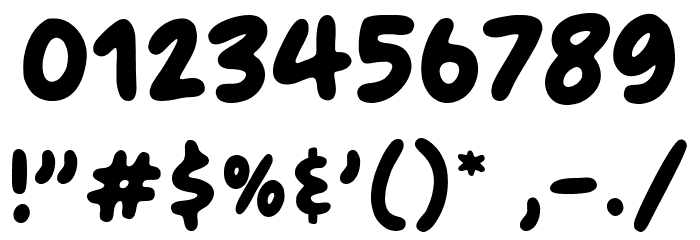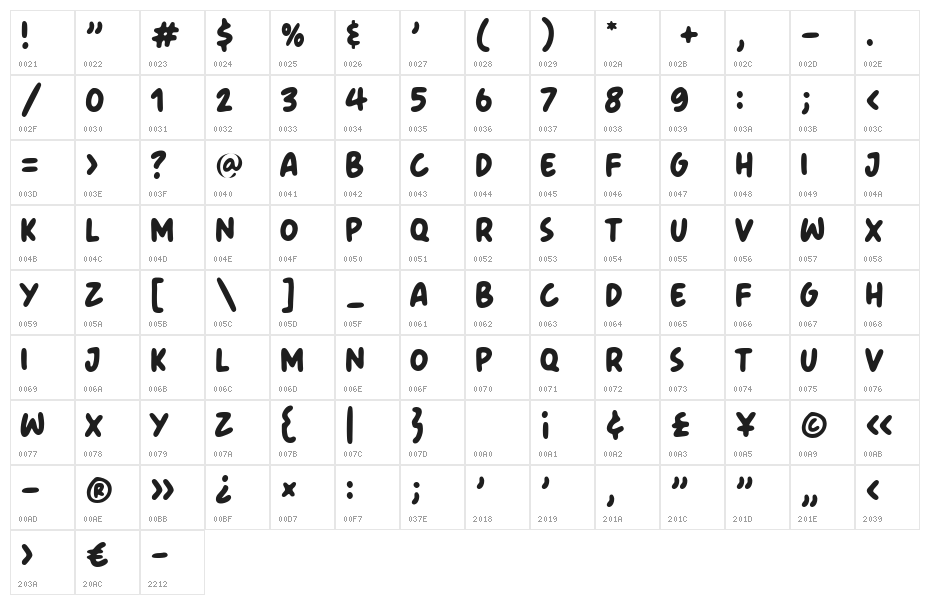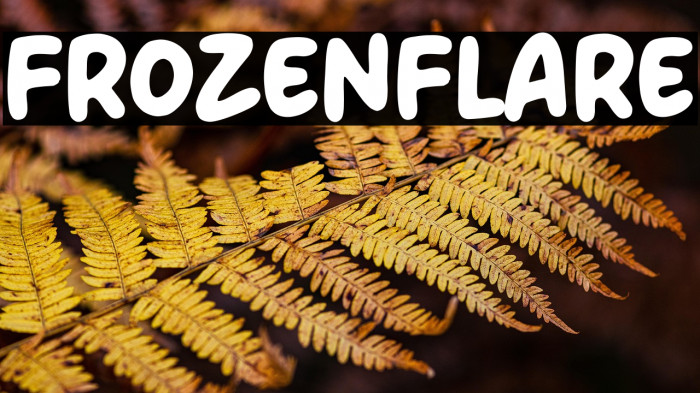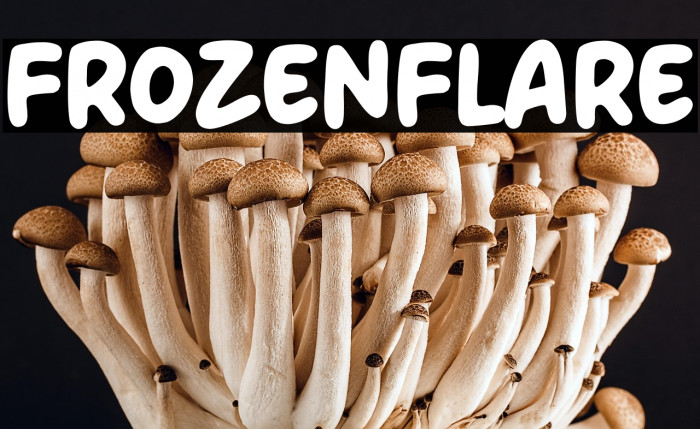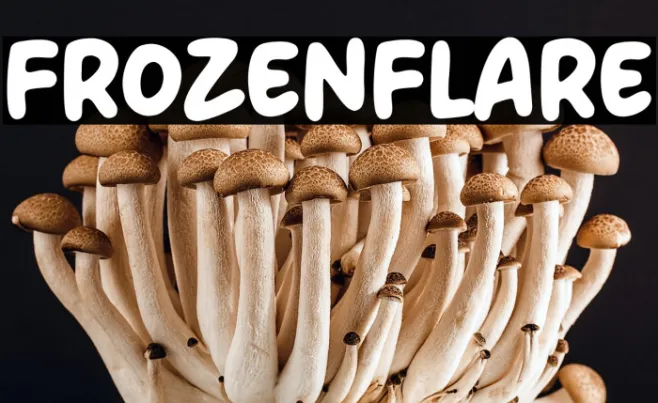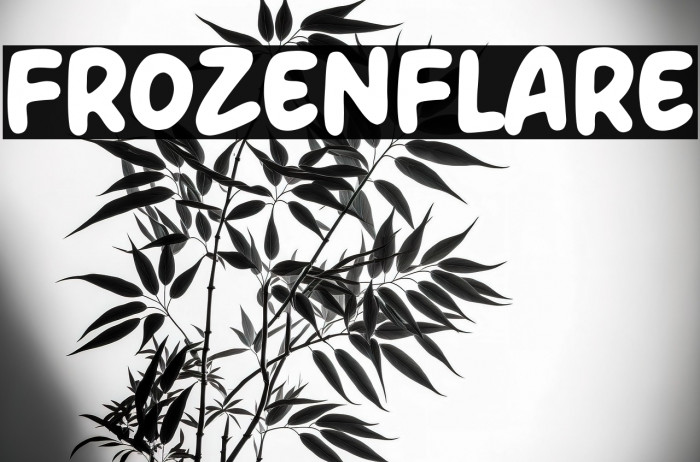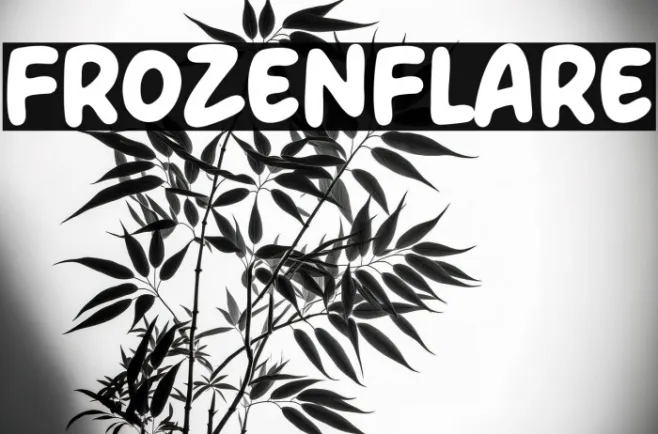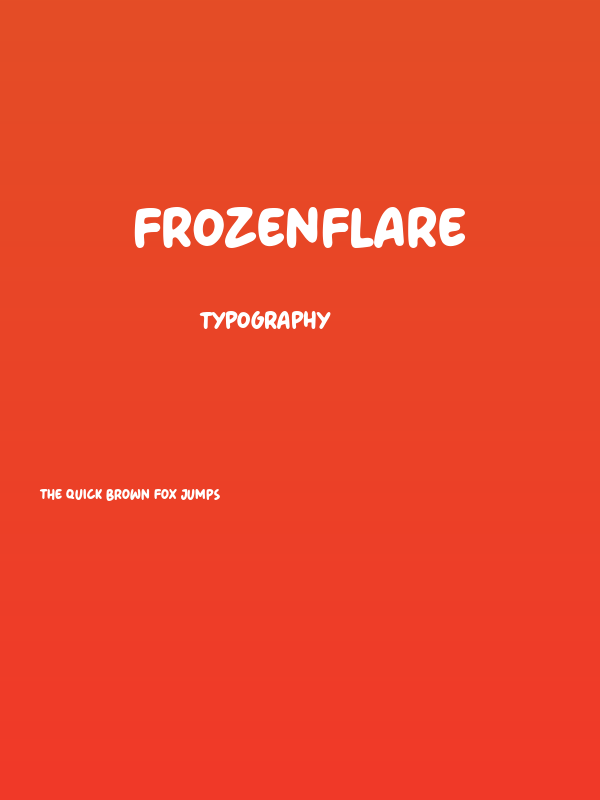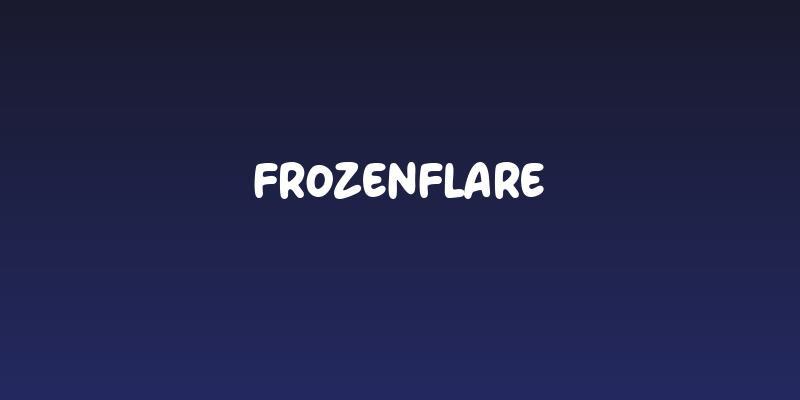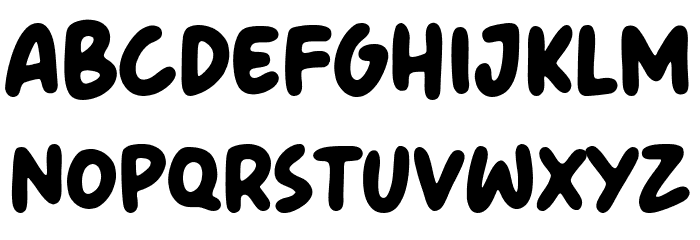
Frozenflare Font
Frozenflare Description
This font features a bold and playful style with rounded edges and a hand-drawn appearance. The characters are thick and uniform, conveying a sense of friendliness and approachability. The uppercase and lowercase letters maintain a consistent style, with a slightly whimsical touch that adds character. The numbers and special characters follow the same design, ensuring a cohesive look across all elements. This font is ideal for projects that require a fun and informal tone, making it suitable for children's books, playful branding, or casual invitations.
| Proposed Projects | Children's books, playful branding, casual invitations, posters, and social media graphics. |